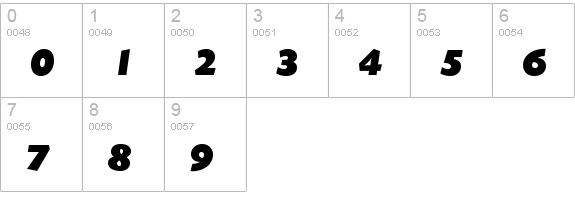
Today Sans Serif Ultra Italic is an extreme-weight, display, italic variant in the Today typeface family \xE2\x80\x94 well suited to extreme display use where maximum visual weight is required.
Introducing Today Sans Serif Ultra Italic font, a versatile and expressive typeface that embodies a perfect balance between elegance and modernity. With its sleek and refined letterforms, this font exudes a sense of sophistication, making it a perfect choice for a wide range of design projects. The Today Sans Serif Ultra Italic font boasts a strikingly bold and slanted style, adding a touch of dynamism and flair to any text. Its sharp edges and clean lines create a sense of professionalism, making it ideal for both digital and print media applications. Whether used in headlines, logos, or body text, this font commands attention and adds a touch of class to any design. One of the most exciting aspects of Today Sans Serif Ultra Italic font is that it is available for free download at FontsMarket.com. This means that designers, creatives, and typographers alike can easily access and utilize this remarkable typeface without any cost. Its availability as a free resource enables a wider range of users to experience the beauty and versatility of this font, making it an excellent choice for both personal and commercial projects. With its extensive character set and multilingual support, Today Sans Serif Ultra Italic font ensures that your message can be effectively conveyed across various languages and cultures. Its high legibility and distinct personality make it a perfect choice for branding, advertising, packaging, and editorial design. In conclusion, Today Sans Serif Ultra Italic font is a stunning and powerful typeface that effortlessly combines elegance, modernity, and versatility. Its freely available download at FontsMarket.com allows designers to unlock its full potential and create visually captivating designs that leave a lasting impression. So, why wait? Take advantage of this incredible font and elevate your designs to new heights today!